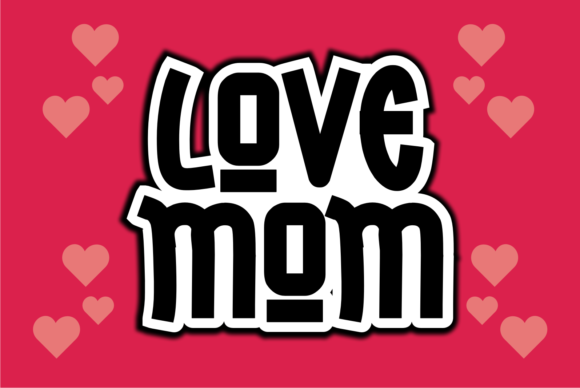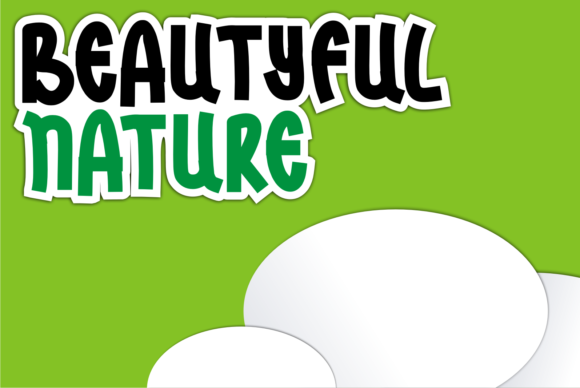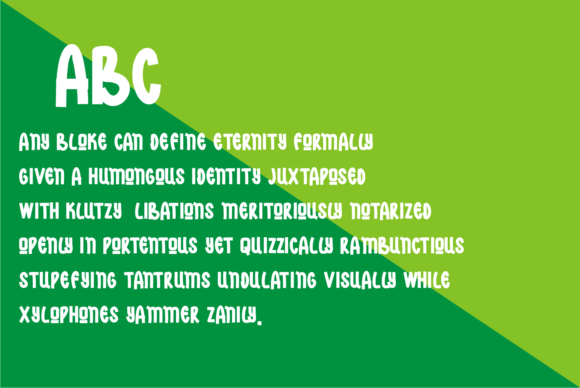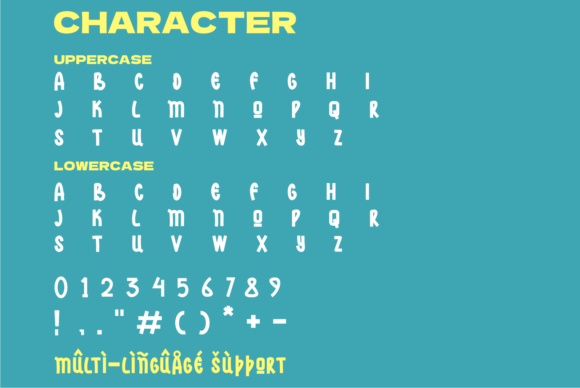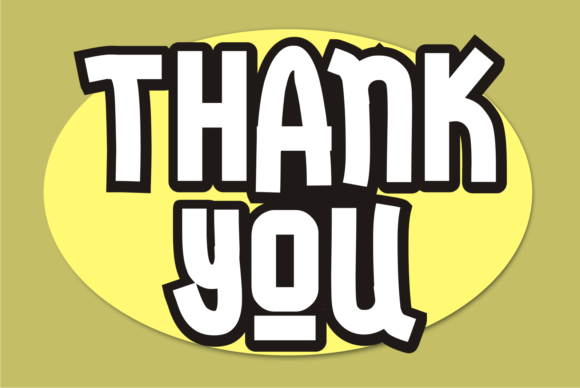
Introduction to Nolep Erose Font
Nolep Erose is a cool and trendy-looking display font.
This font is great for logos, badges, clothing, posters, and other projects that need to stand out from the crowd Fall in love with it and bring your designs to the highest level.
Key Features of Nolep Erose Font
Why Choose Nolep Erose Font?
Nolep Erose Font offers exceptional quality and versatility, making it a valuable addition to your design toolkit. Whether you’re creating for personal projects or commercial use, Nolep Erose Font delivers professional results.